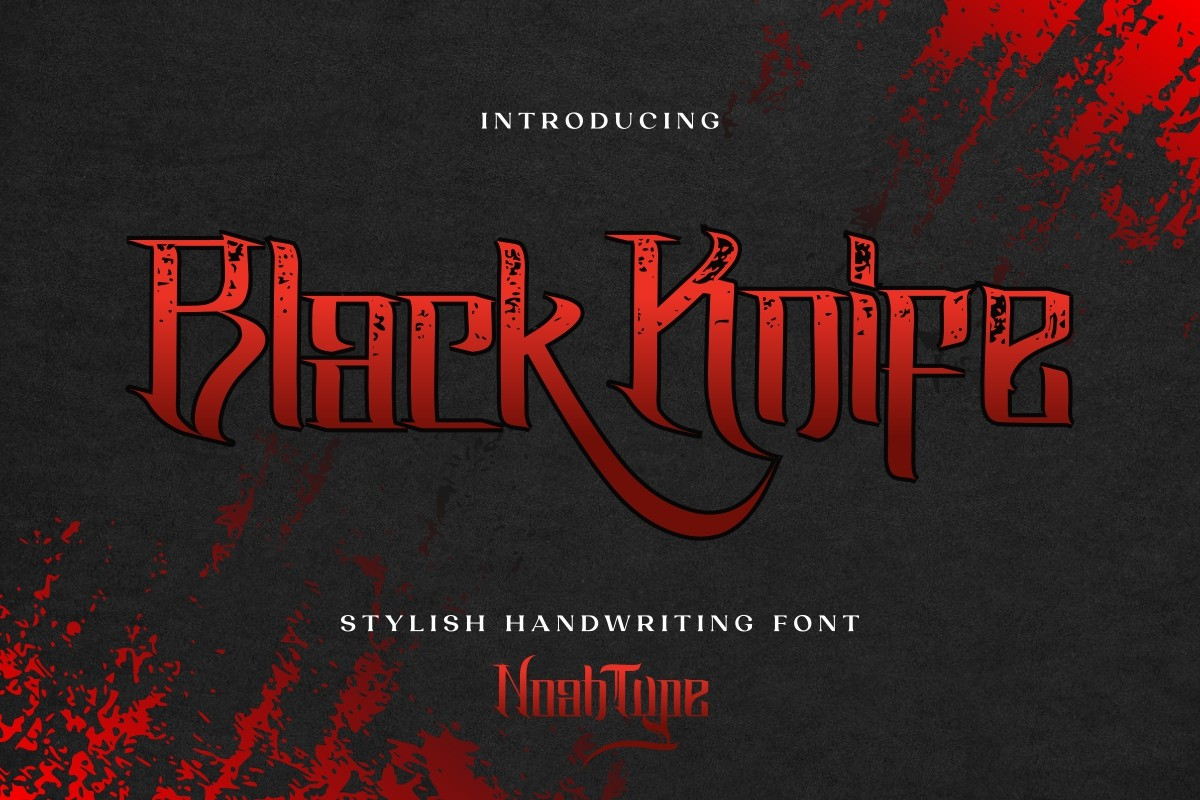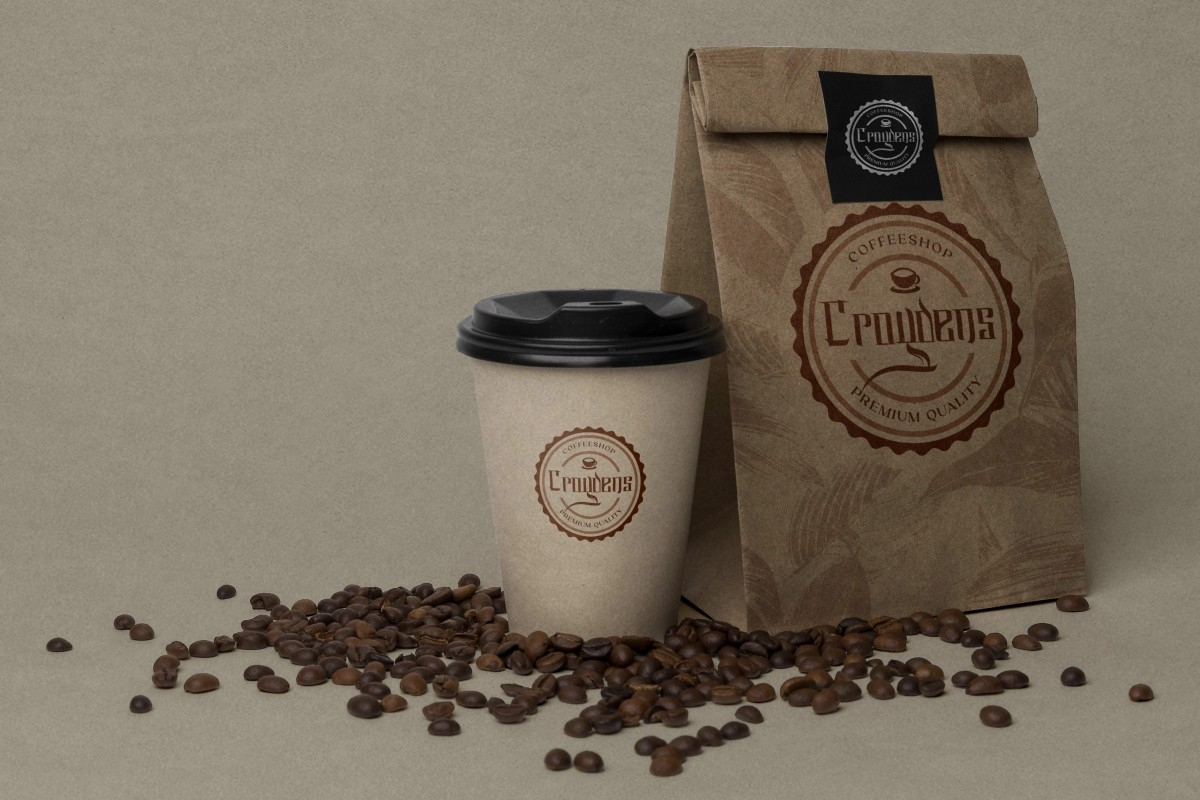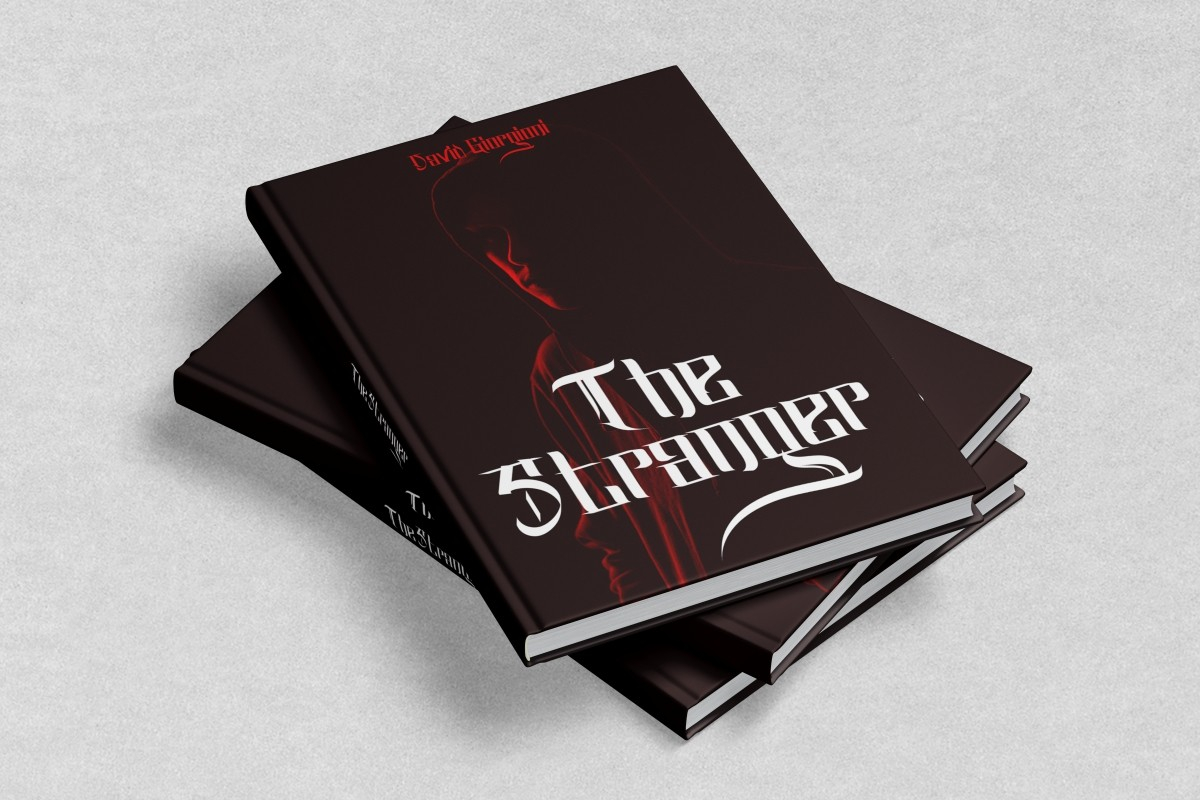
About Black Knife Font
Black Knife is a cool and bold blackletter font. It is perfect for any branding project such as logos, t-shirt printing, creative products, and more.